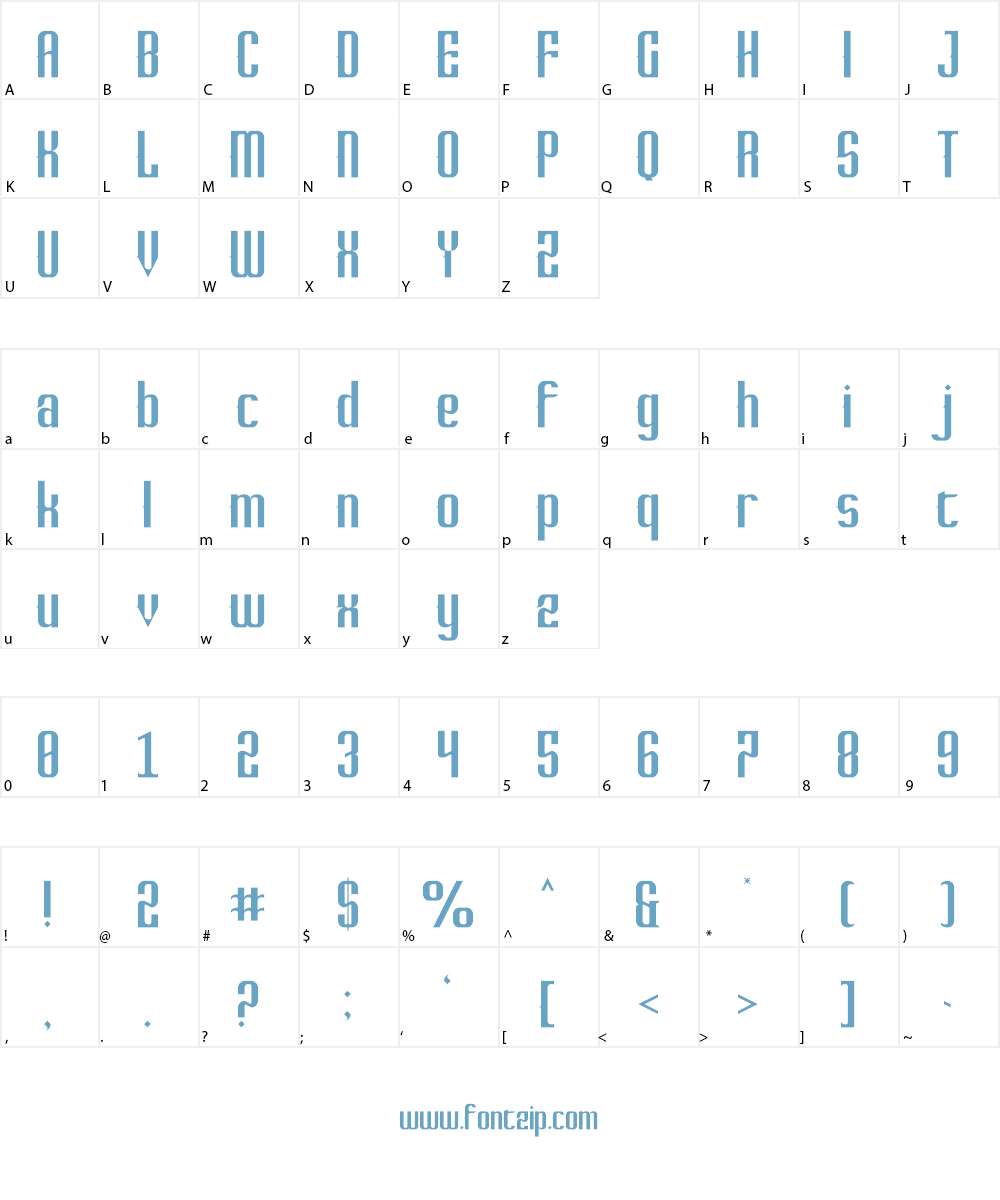
An asymmetrical, slightly scriptlike sans-serif design. Optimized for display. Supports Danish, Dutch, English, Finnish, French, German, Hungarian, Icelandic, Italian, Norwegian, Portuguese, Spanish, and Swedish.